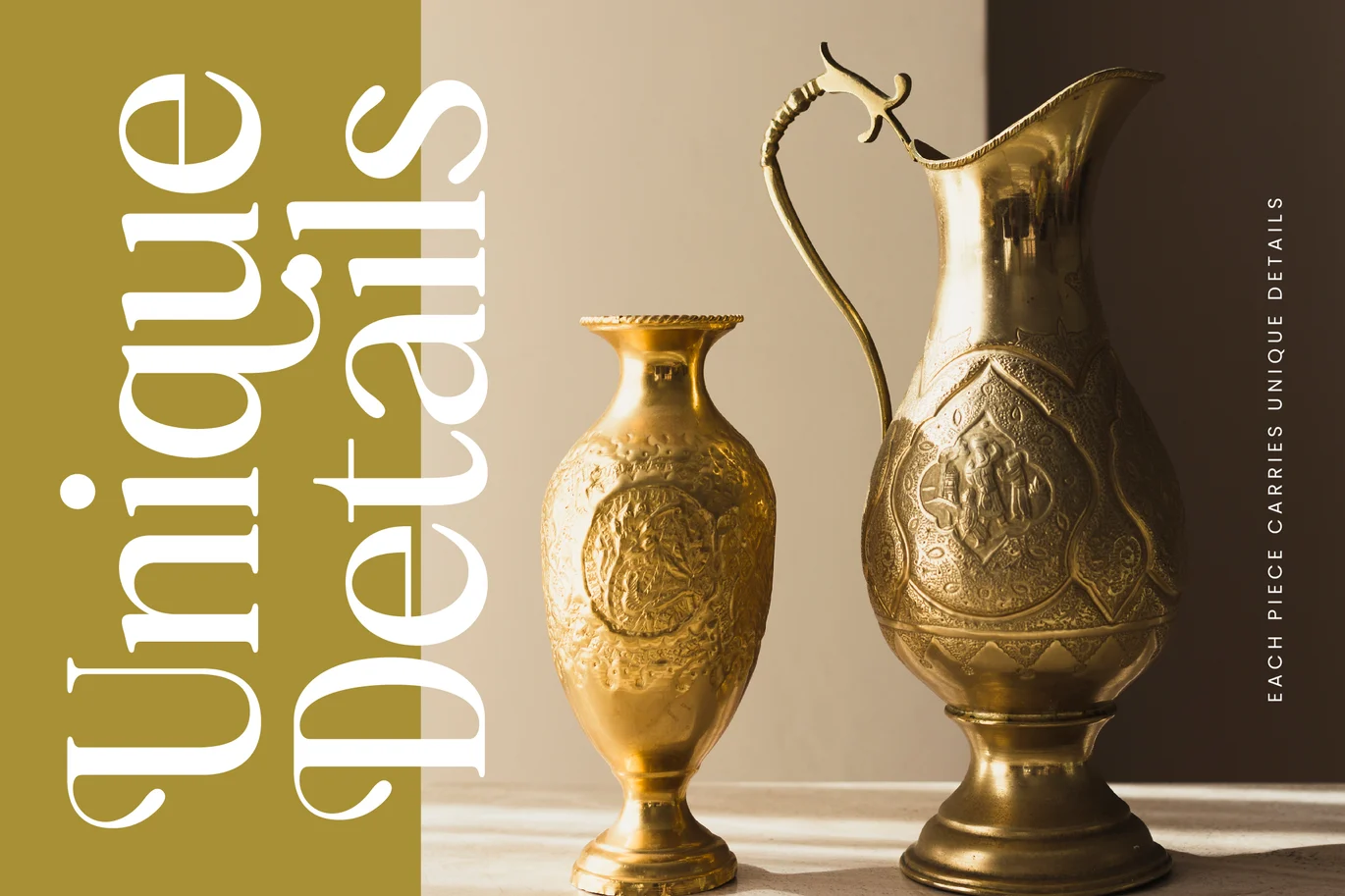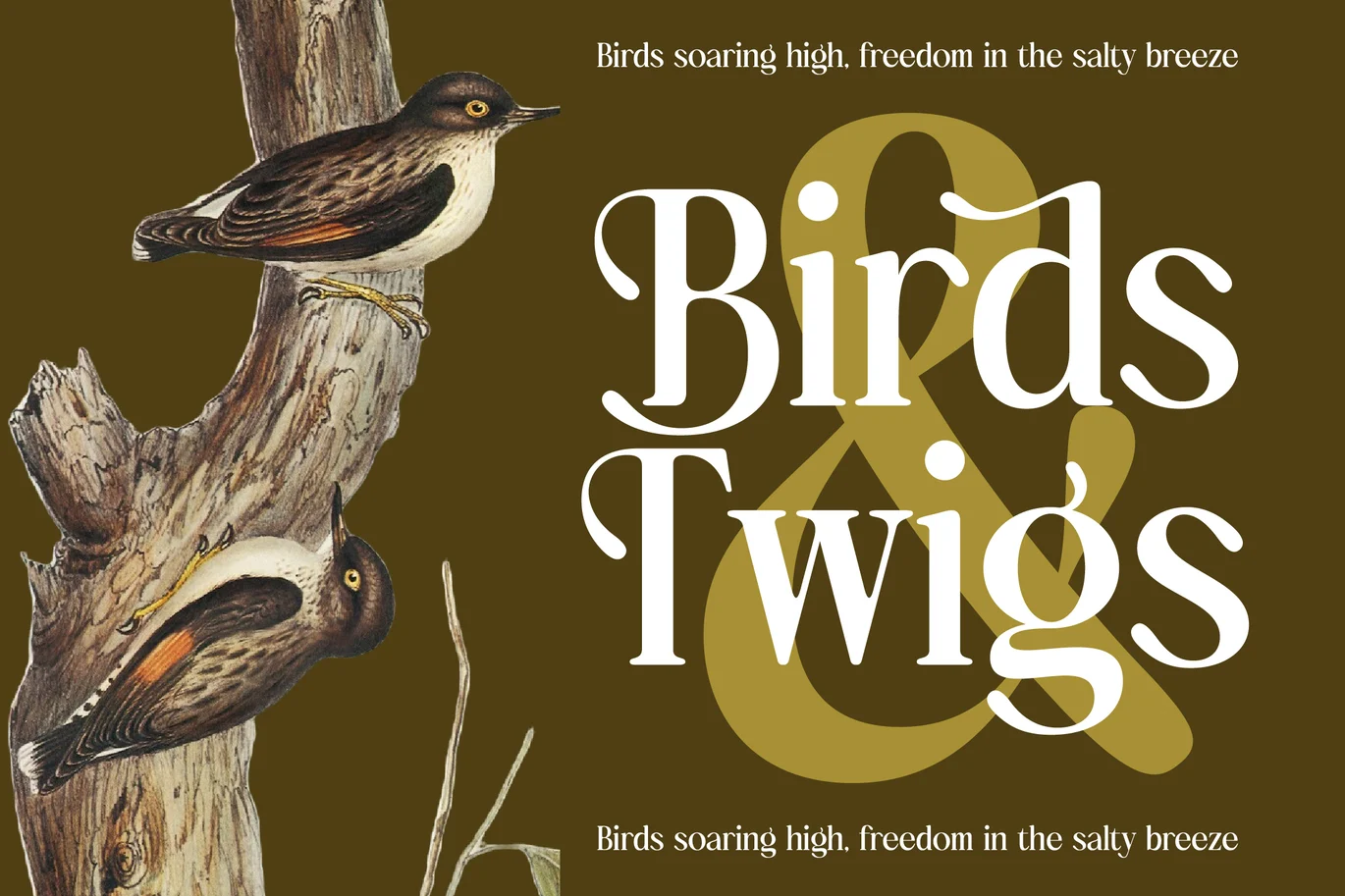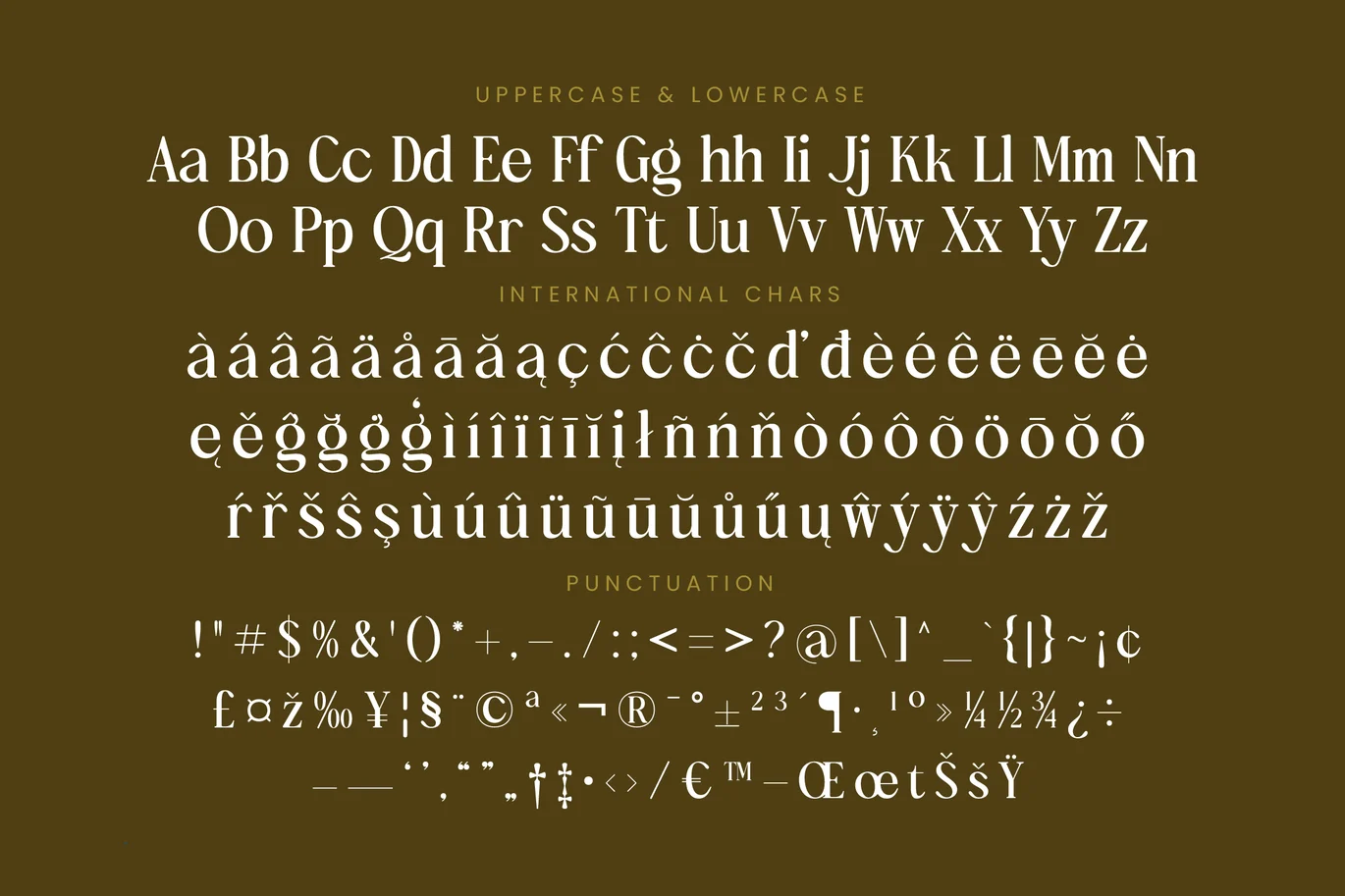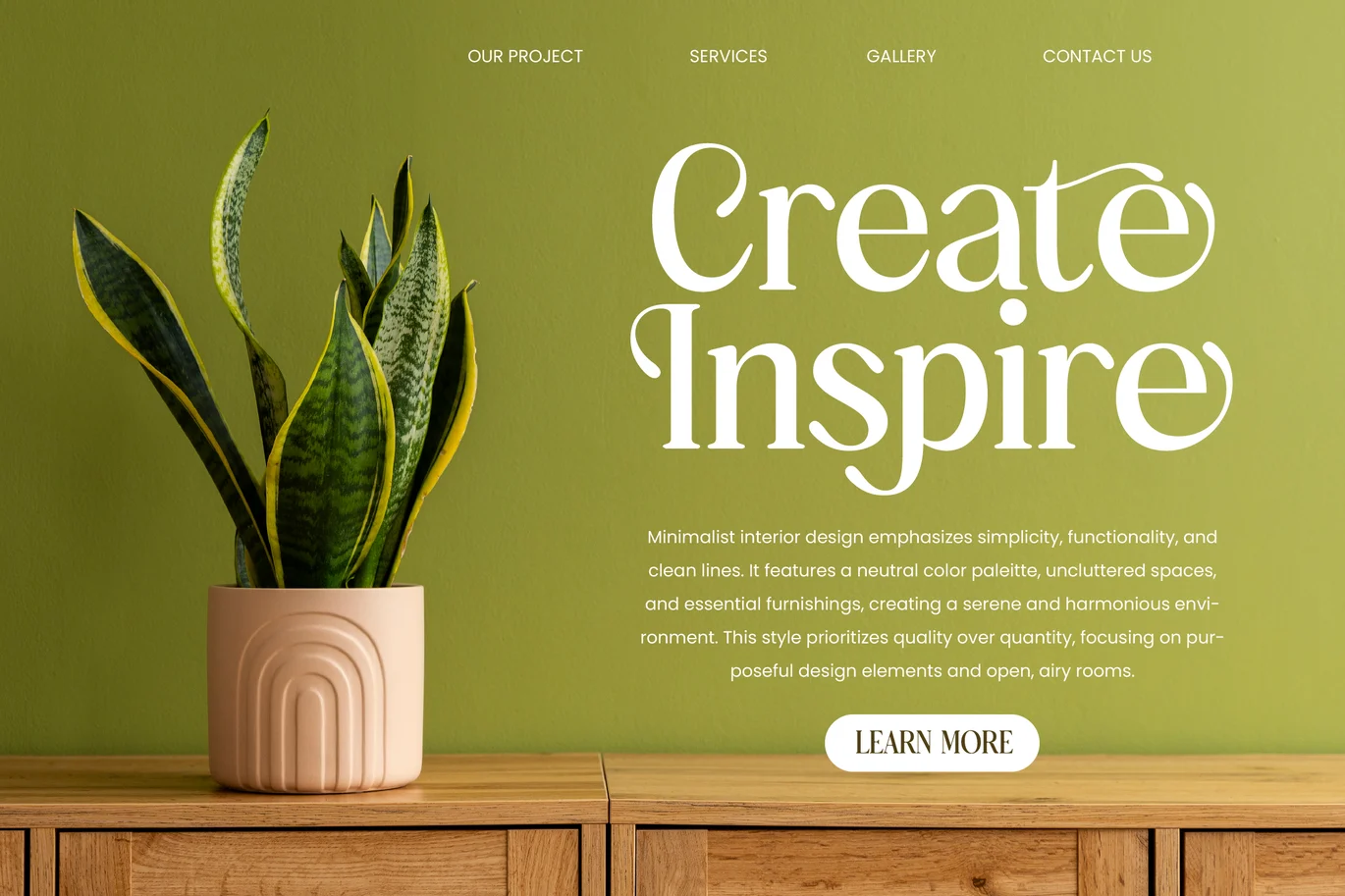
Bulings Nature – Vintage Serif Display Font
Bulings Nature is a vintage serif display font inspired by organic shapes and natural . With 18 ligatures and 57 alternates, it blends classic charm and modern craftsmanship, making it perfect for logos, packaging, editorial design, and eco-friendly branding. Its soft curves and elegant details create a aesthetic that captures both warmth and sophistication in every design.